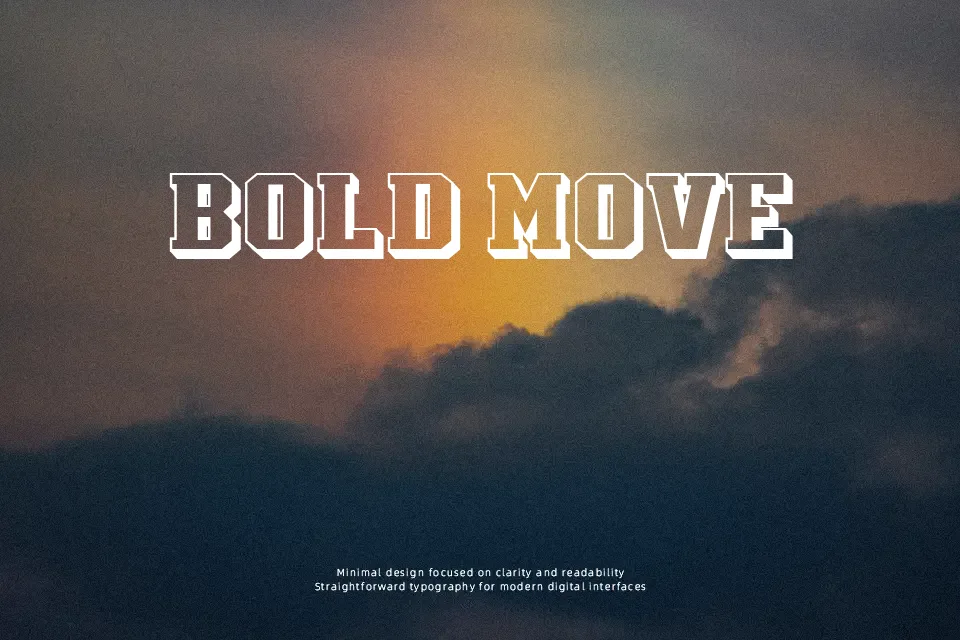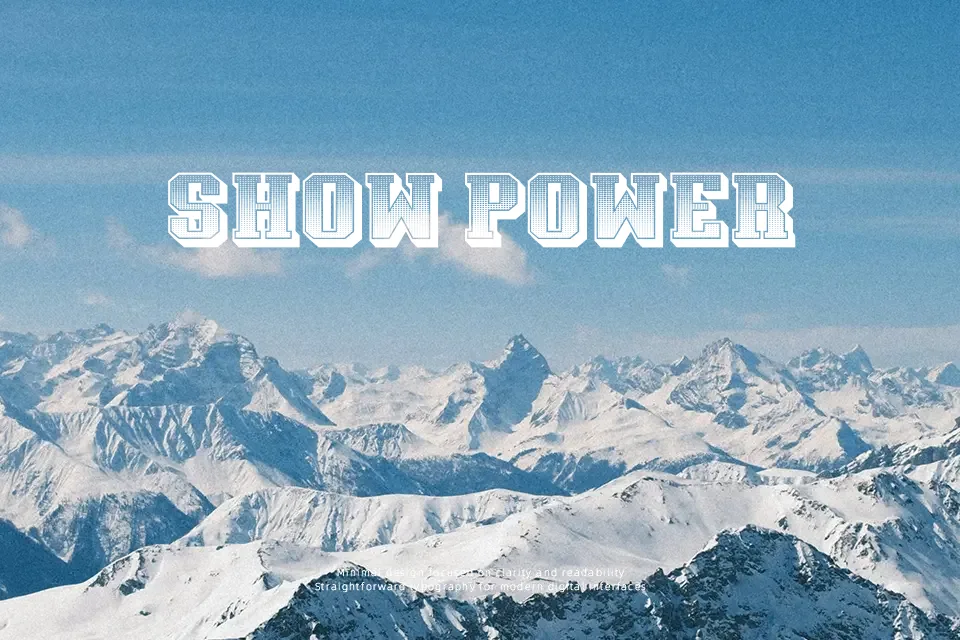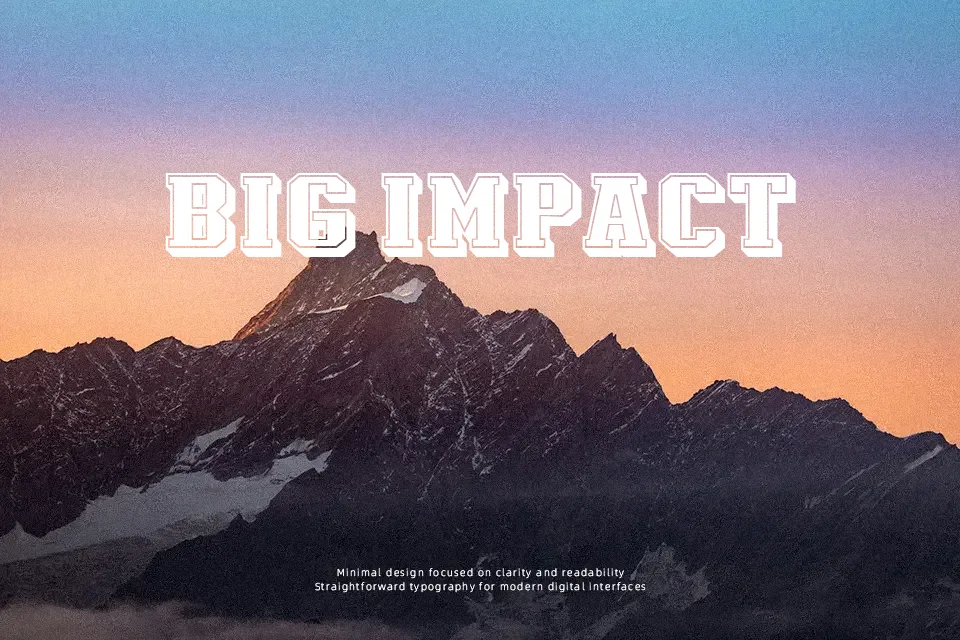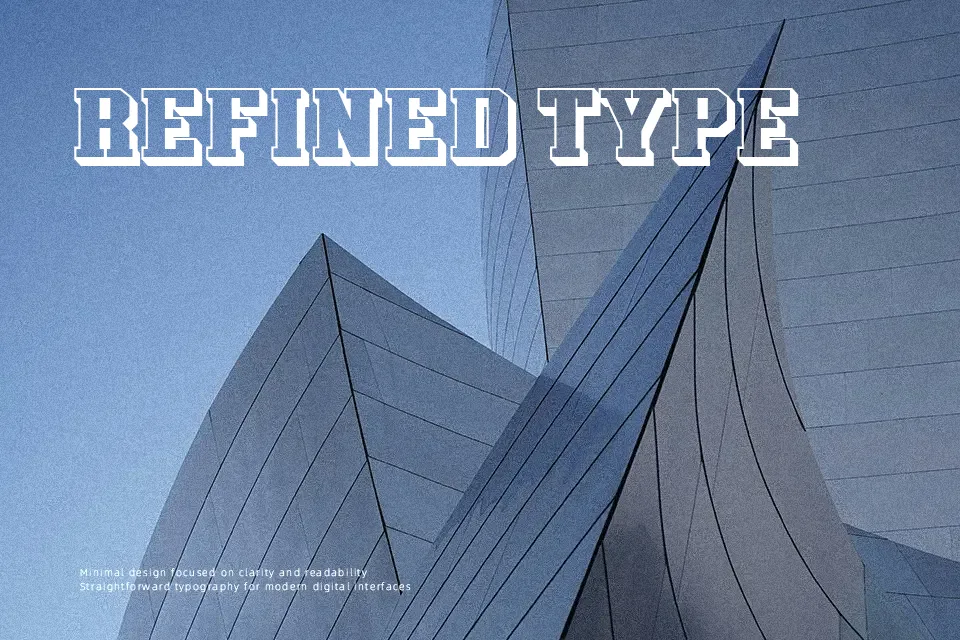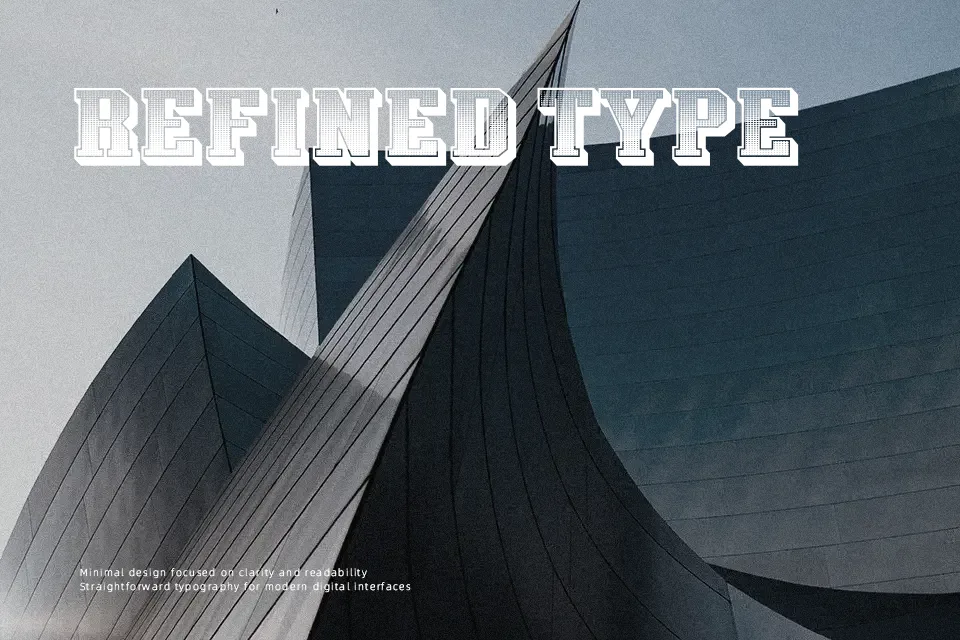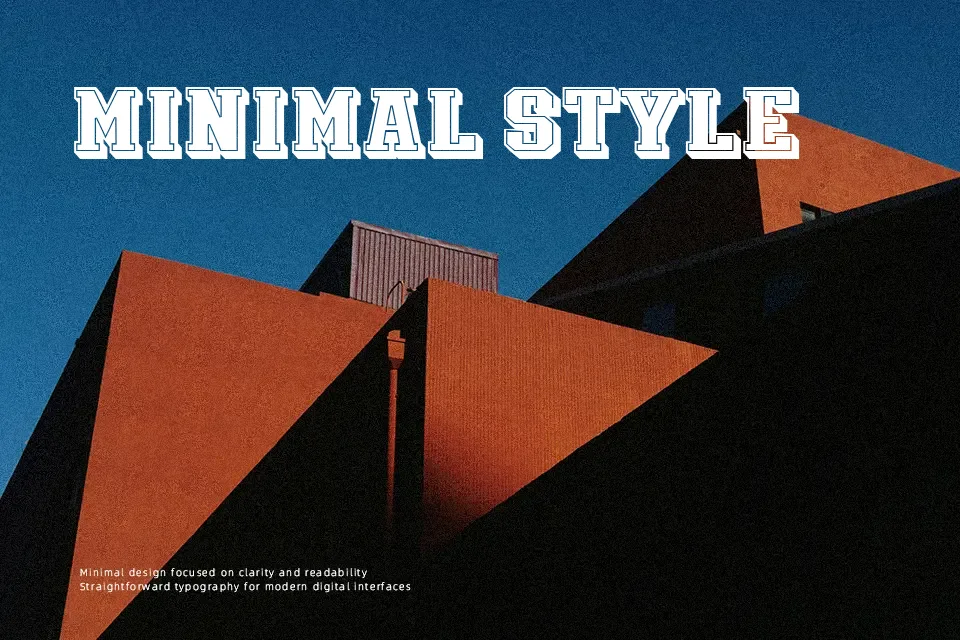
Silicone Font
Silicone Font is characterized by bold, extruded letterforms with heavy uniform strokes and a distinct three-dimensional appearance. Each character features rigid geometric angles, square proportions, and deep outline contours that establish a striking physical presence on the page. The letterforms maintain balanced spacing designed specifically for large display environments, ensuring structural clarity when isolated in short titles or logo treatments. However, the heavy visual density and complex dimensional framing make the design impractical for running paragraphs or small interface text. The typeface performs best when displayed at larger sizes where its sculptural depth and geometric construction can function without crowding neighboring design elements.
– arcade game titles
– retro poster headlines
– music album cover art
– streetwear graphic prints
– continuous body text
– mobile interface body copy
– formal legal documentation
– small caption labels